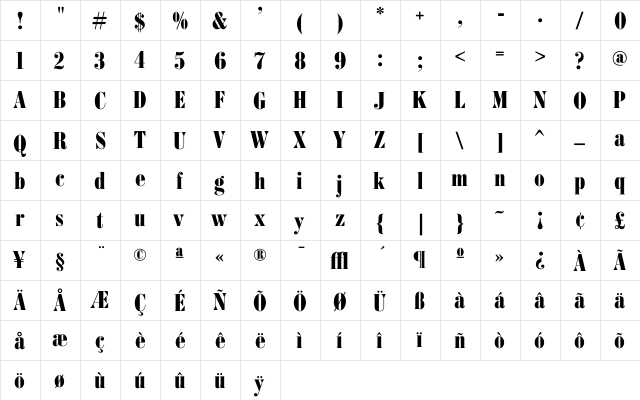
BodoniFB Bold
Design Context for BodoniFB Typeface
BodoniFB is a composed and adaptable typeface that performs quietly and consistently across a wide range of design contexts. The heavy weight commands attention and anchors typographic hierarchies.
Pro Tip: Pair BodoniFB with a font of contrasting weight or personality to build a more expressive typographic hierarchy.